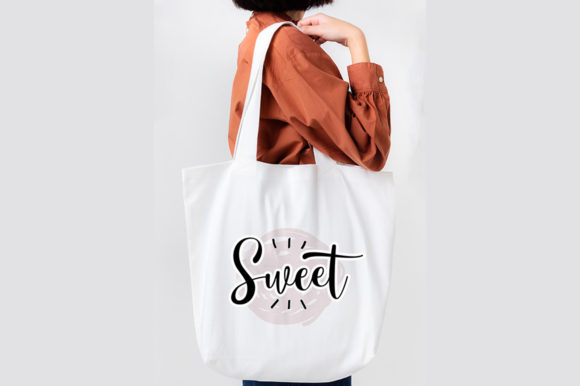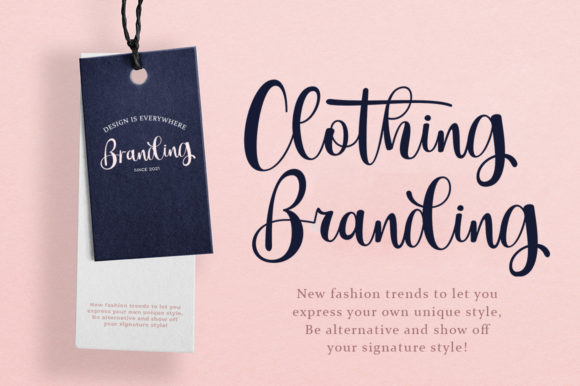
White Sparkle Font
db-ku.com - Script & Handwritten -- White Sparkle is a modern calligraphy font that features a varying baseline, smooth lines, classic and elegant touches. It can be used for various purposes such as headings, signature, logos, wedding invitations and more. This font is PUA encoded which means you can access all of the glyphs and swashes with ease!